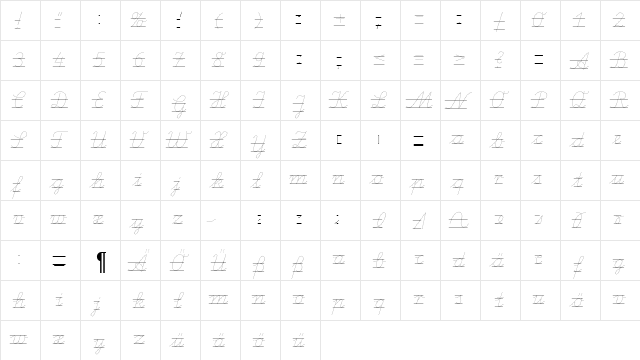
LA El 2
Design Context for LA El 2 Typeface
LA El 2 takes a measured approach to typography — its balanced proportions and neutral character make it a reliable workhorse for both digital and print work.